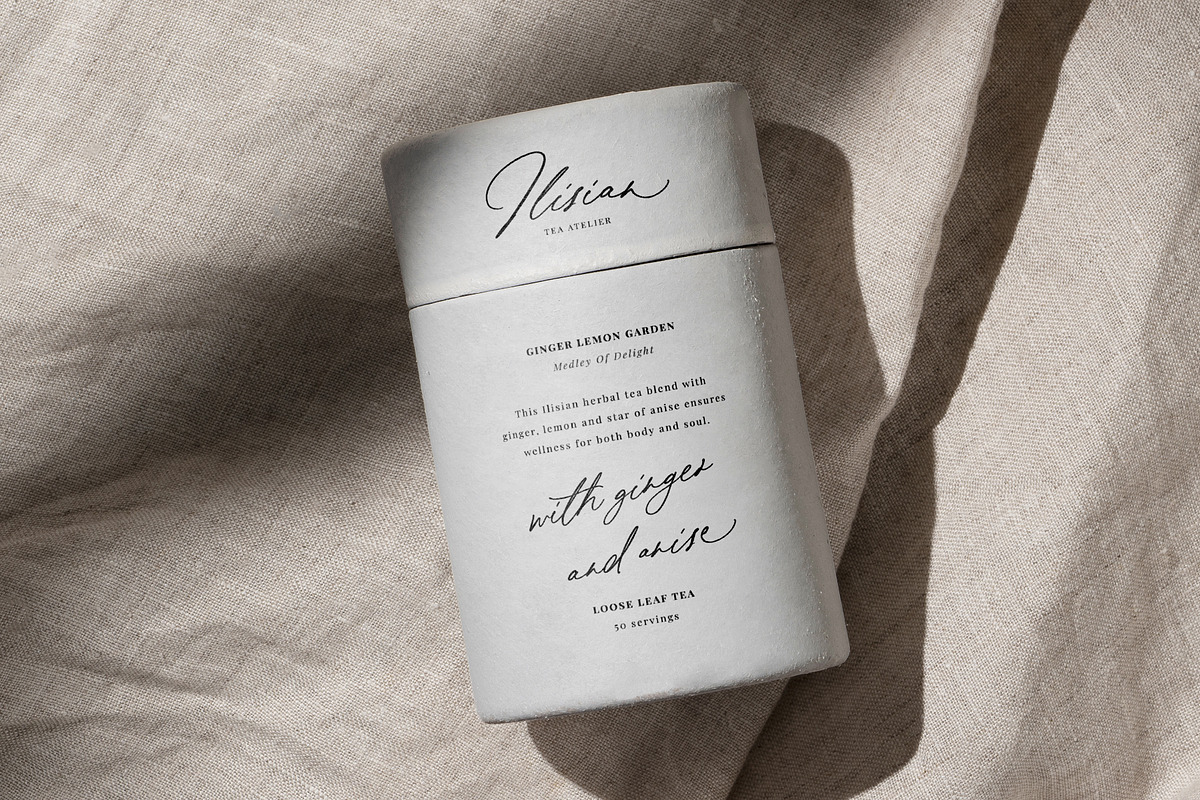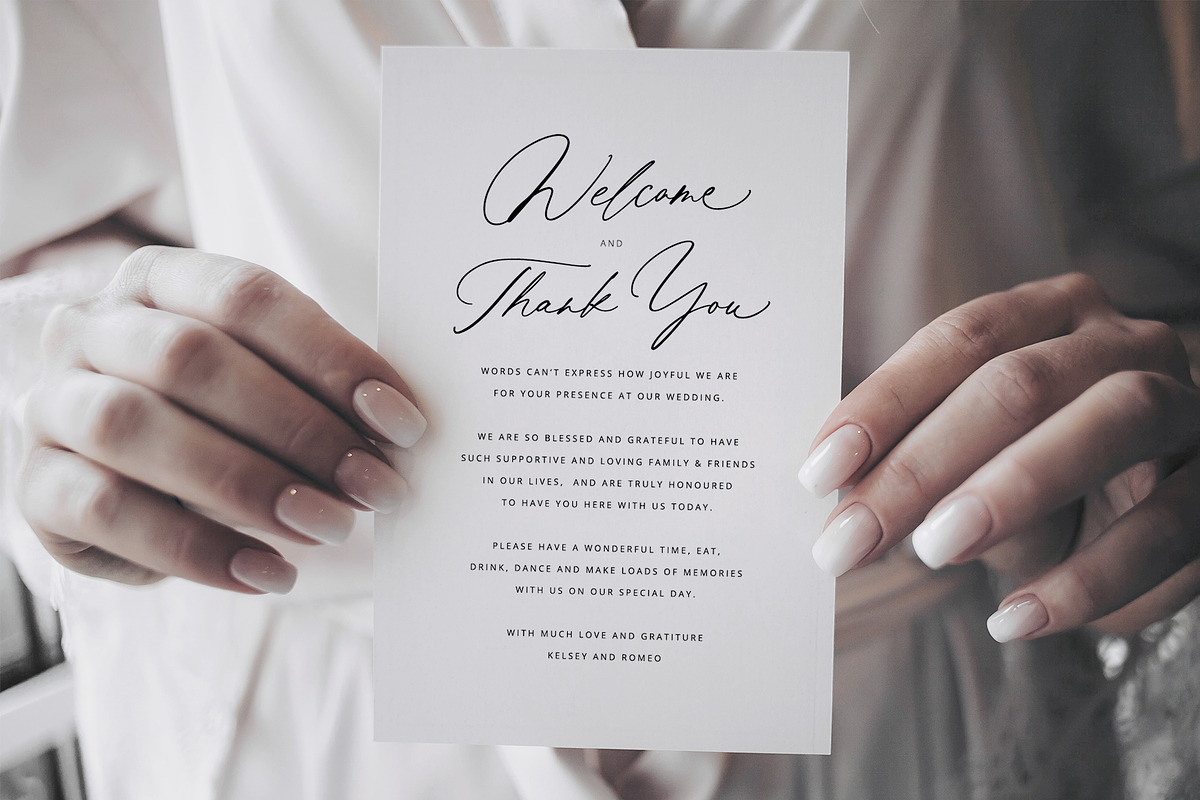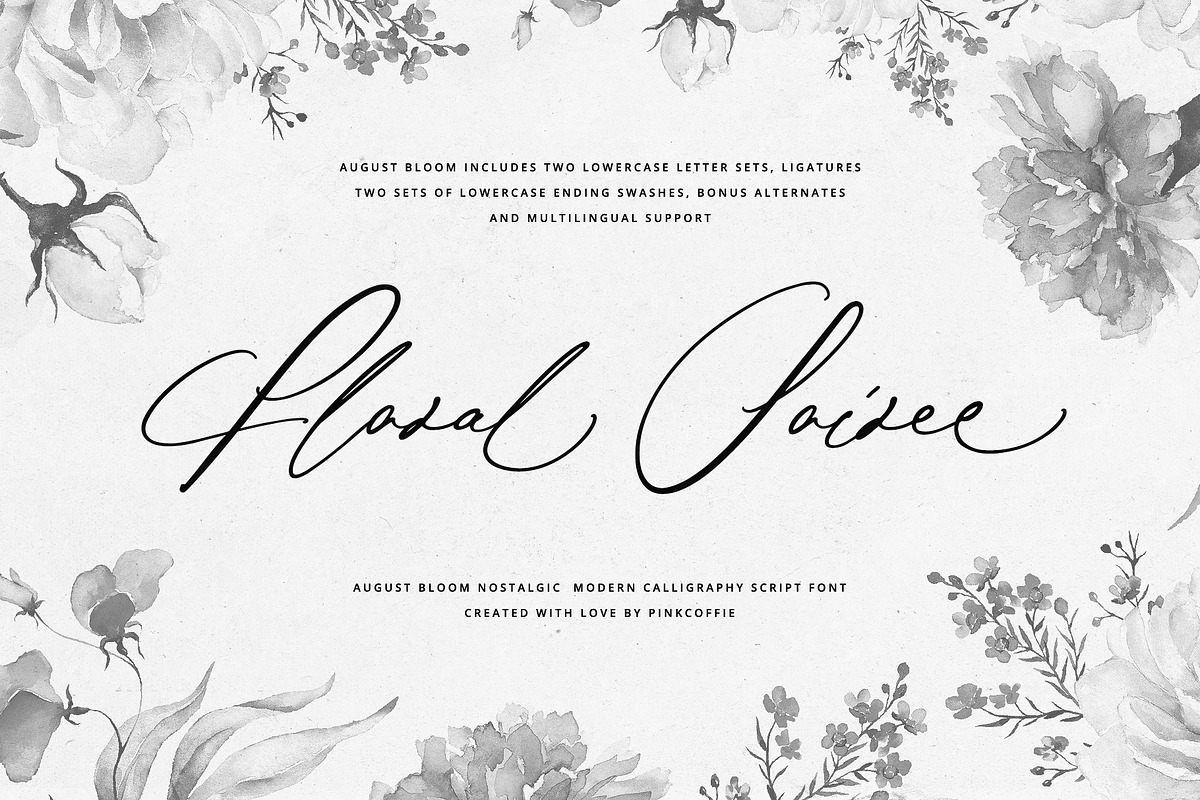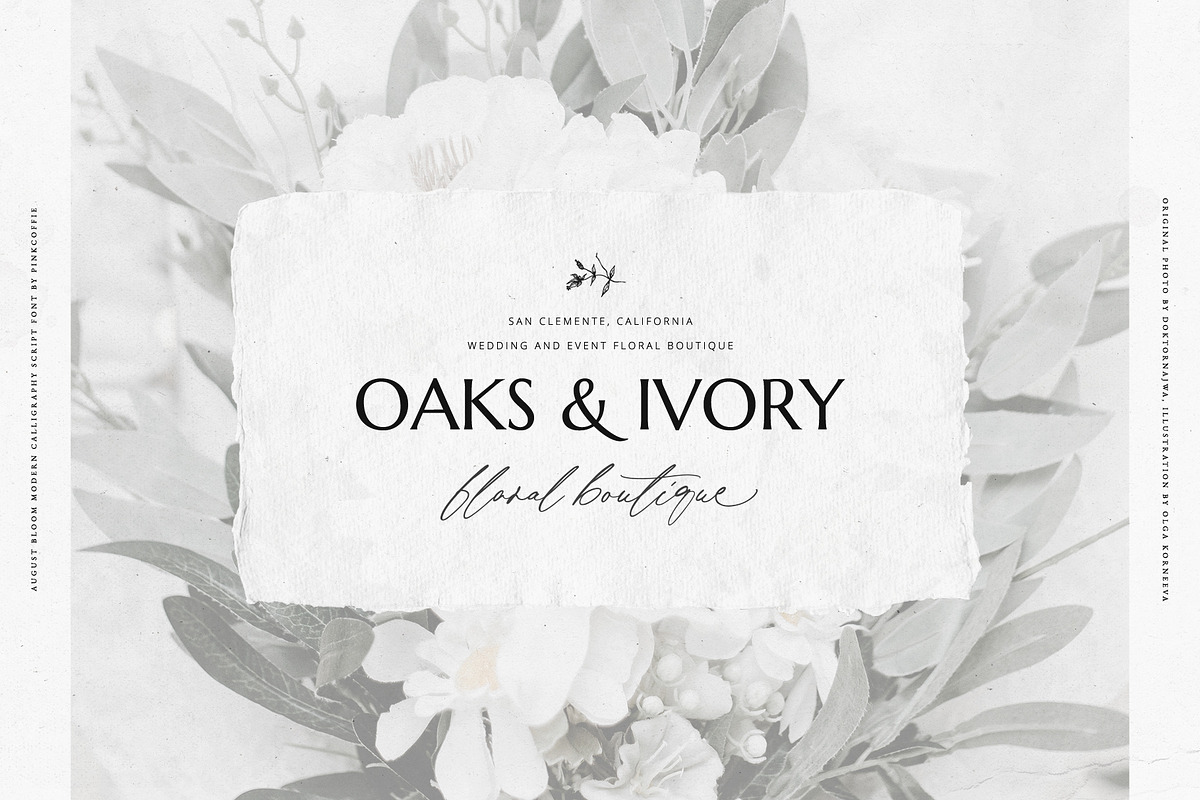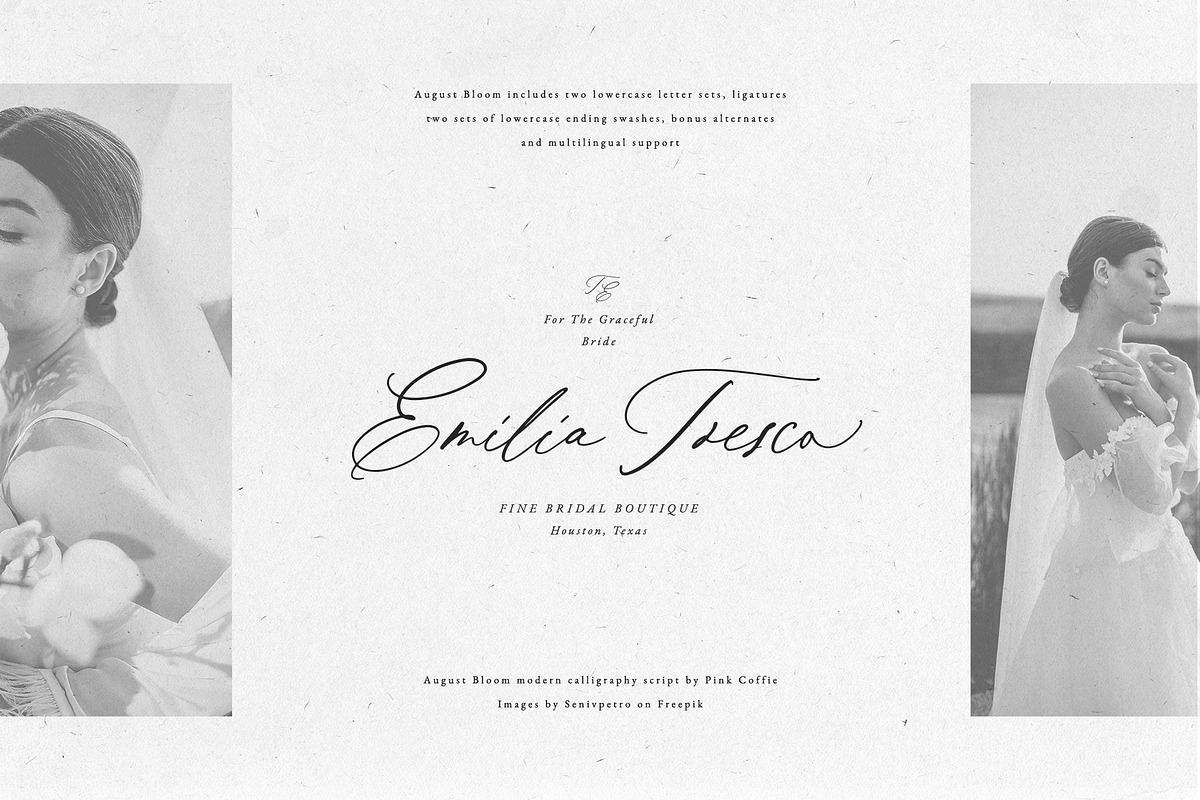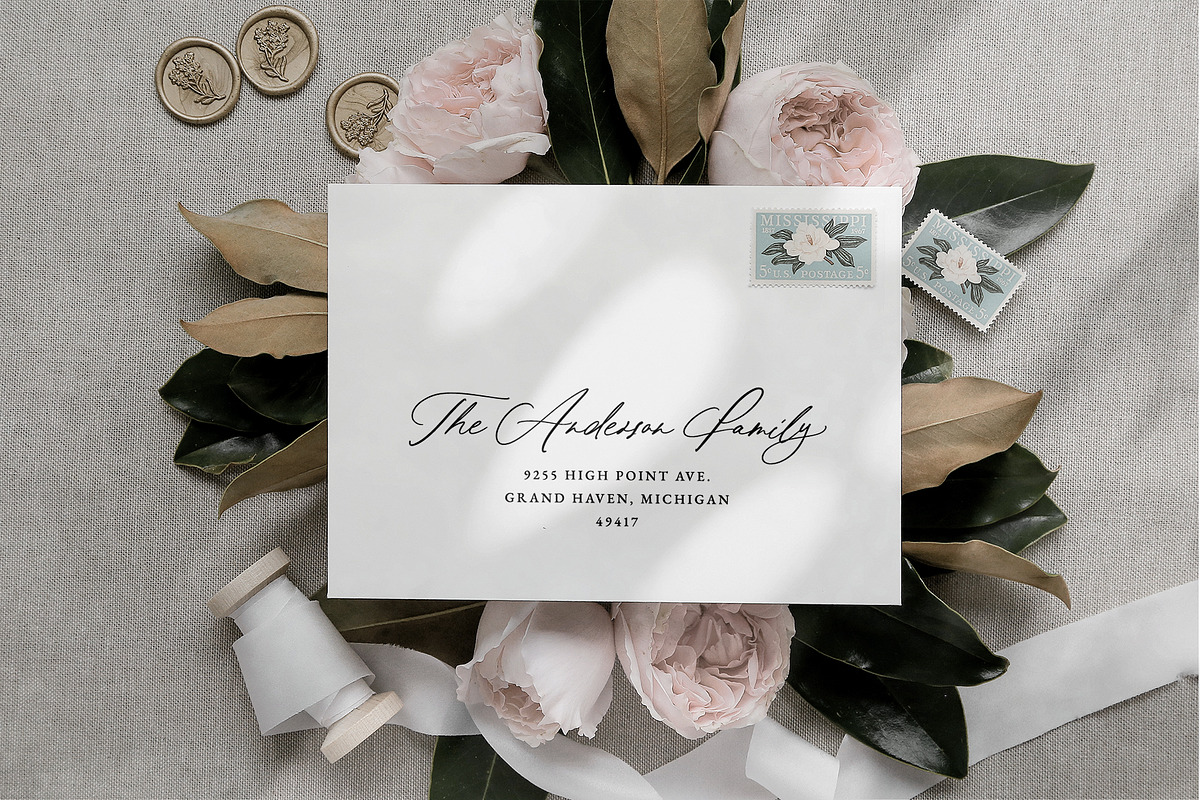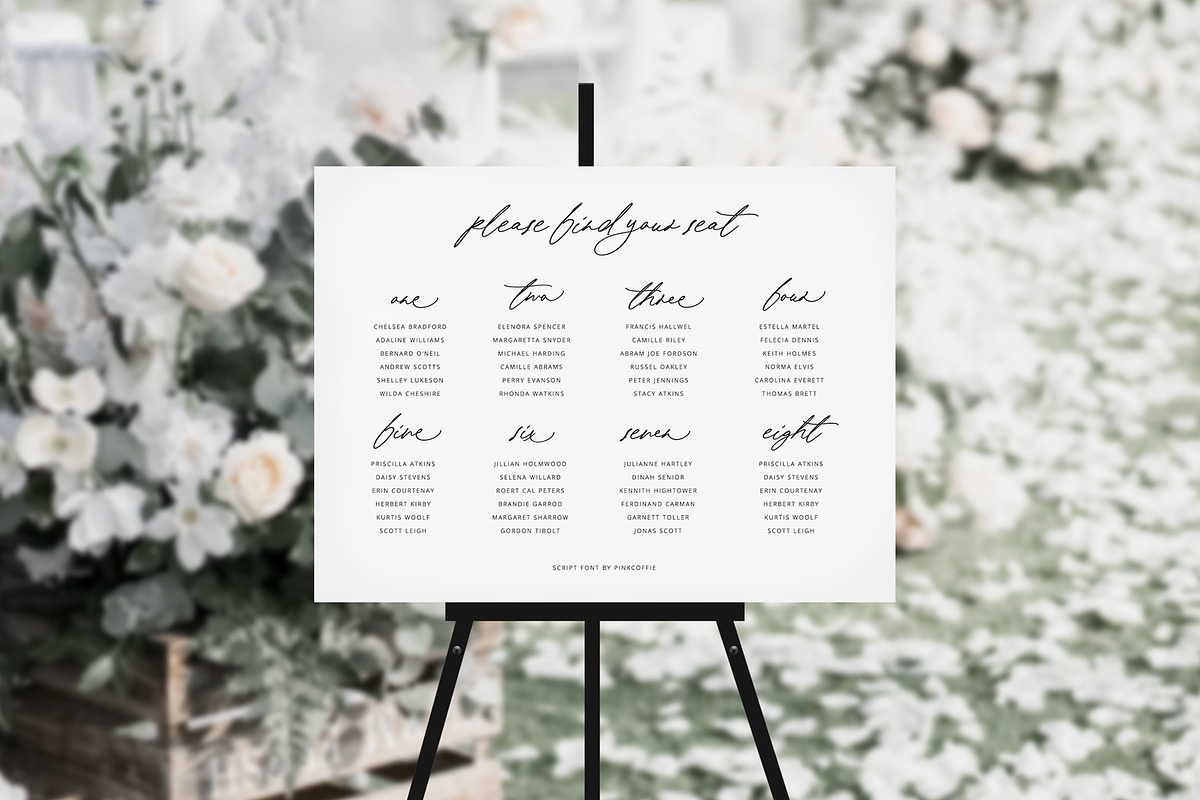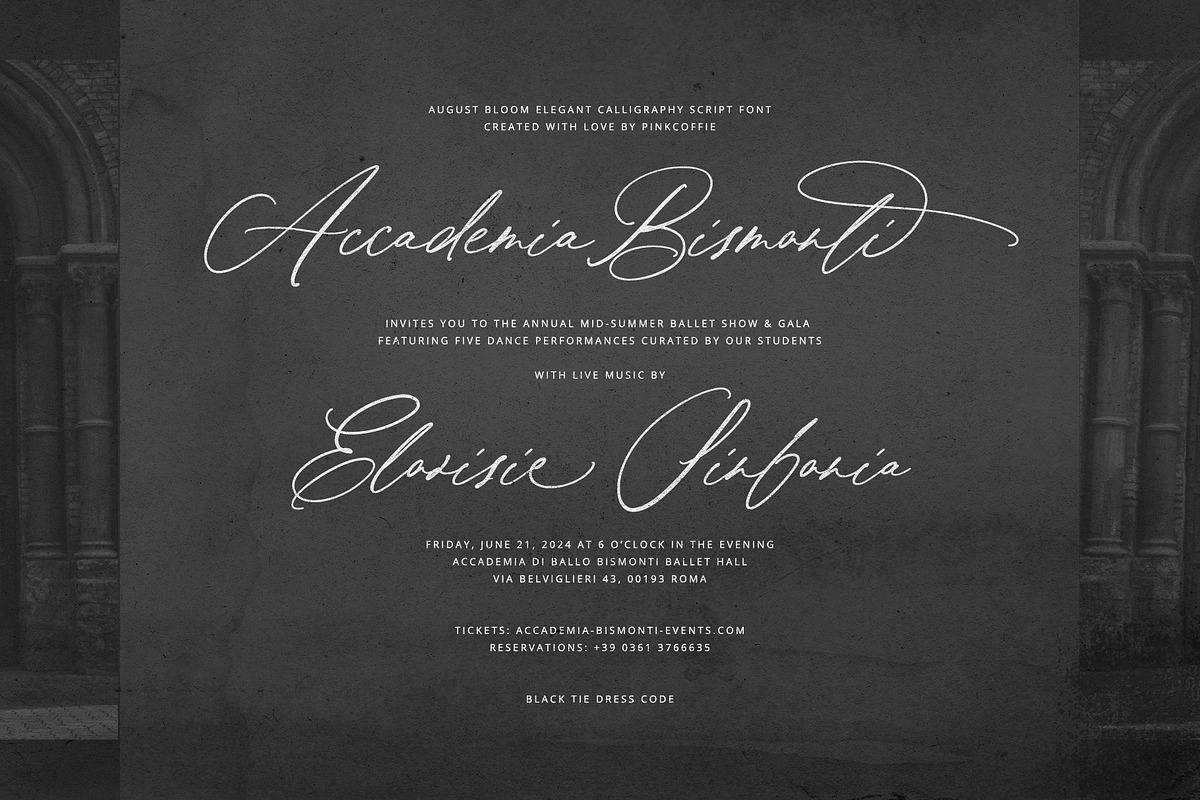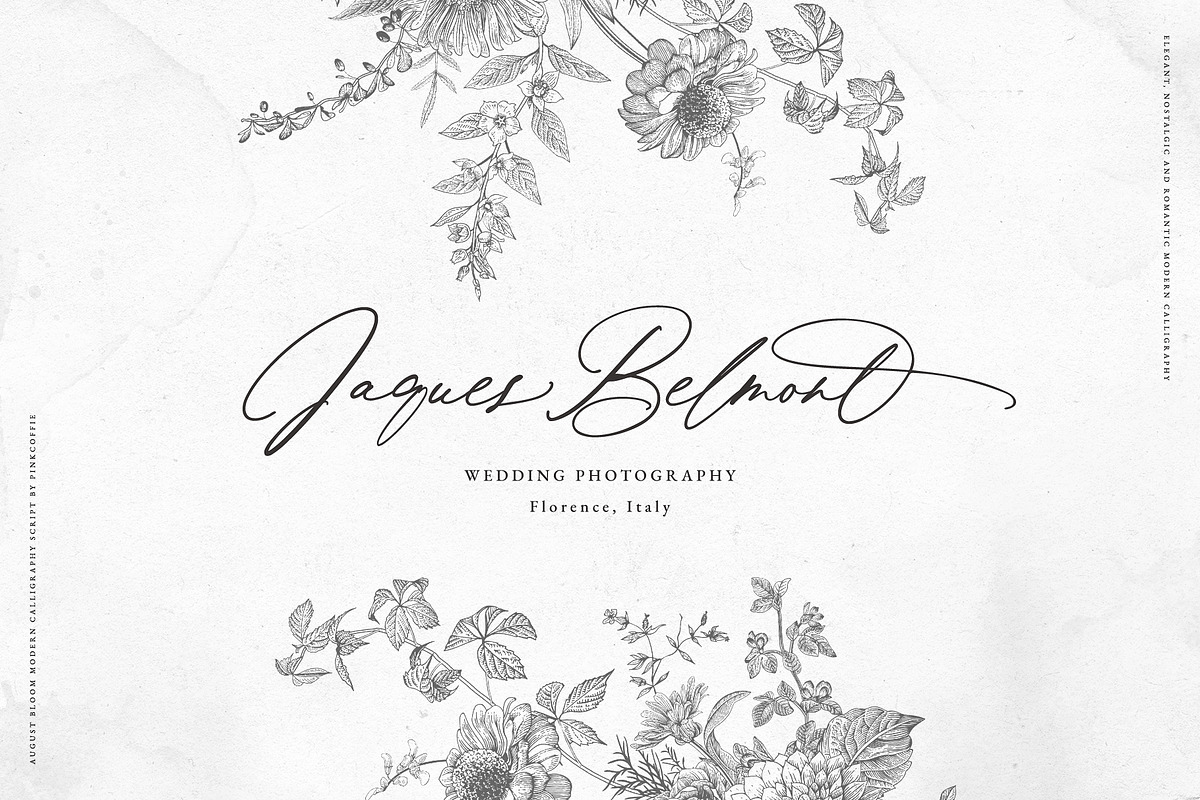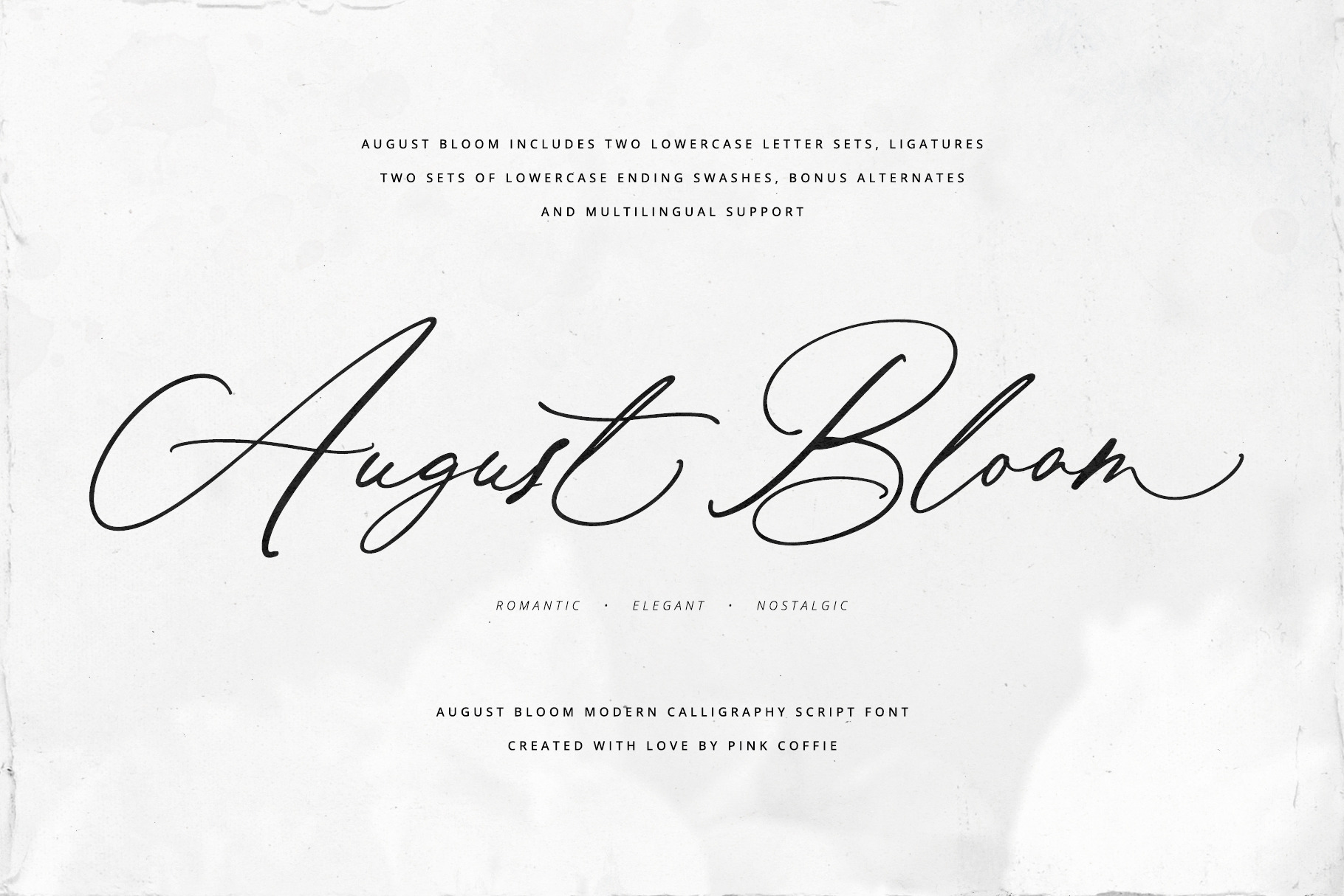
August Bloom | Elegant Script Font
Introducing August Bloom, a timeless modern calligraphy script font inspired by elegant, refined and classy wedding stationery, feminine branding, and gorgeous old world calligraphy styles. xx
This gorgeous calligraphy script was designed for elegant wedding stationery projects, but its versatility extends far beyond that. Packed with two lowercase sets, automatic double letter ligatures, letter alternates for t's, multilingual support, and two styles of lowercase ending swashes, August Bloom will allow you to mix and match for endless possibilities, no matter if it's for branding projects, logos, packaging, greeting cards, apparel, stationery, wedding menus, seating charts, planners, journals, art prints, social media graphics, quotes, blogs, websites, or any other project that needs a sprinkle of feminine charm!
- August Bloom - regular PUA encoded font containing all swashes, ligatures, alternates and OpenType features
- August Bloom Alt - alternative font containing the lowercase letter alternates instead of the regular lowercase set
- August Bloom - Long Swashes - includes the long and swirly lowercase ending swashes only
- August Bloom - Short Swashes - includes the short lowercase ending swashes only
As all my fonts, August Bloom includes multilingual support and the following multi-lingual characters: ÀÁÂÃÄÅĂĄÆĆČÇĎĐÈÉÊĚËĘÌÍÎÏĹĽŁŃŇÑÒÓÔÕÖŐØŔŘŚŠŞŤÙÚÛÜŰŮÝŸŹŻŽ ãàáâäåăąæßćčçďđèéêěëęìíîïľłńňñòóôõöőøŕřśšşťùúûüűůýÿźżž